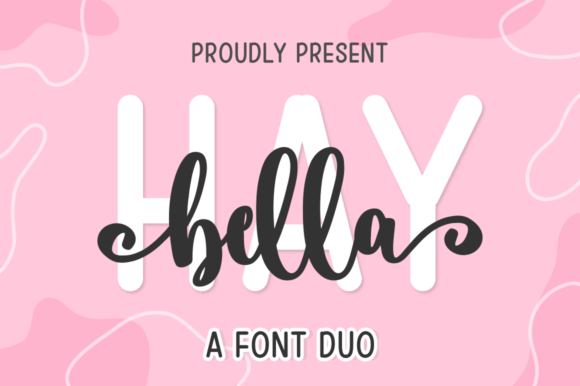
Discover the Joy of Hay Bella Font
Do you remember the feeling of excitement and creativity that comes with planning a special project? Maybe it’s a custom birthday invitation, a wedding program, or a set of holiday cards. Whatever it is, the right font can make all the difference in setting the tone and style. That’s where Hay Bella Font comes in – a beautifully designed duo of script and sans serif fonts that are meant to be used together or separately.
Hay Bella Font is more than just a pretty face; it’s a valuable tool for designers looking to add a touch of elegance and whimsy to their crafts. With its PUA encoding, accessing all glyphs and swashes is a breeze, giving you endless possibilities for customization. Whether you’re a seasoned pro or just starting out, Hay Bella Font is sure to inspire your next creative project.
Hay Bella Font Key Features
- Unique Characteristics: Features a unique, hand-drawn design with a rustic and vintage feel, adding a touch of warmth and personality to any project.
Honest Review: Hay Bella Font
Overall, I’m a fan of the Hay Bella font. It’s a beautiful, elegant script font that works well in various design contexts. ✨ The flowing lines and subtle connections between letters make it perfect for typography-heavy projects, such as invitations, menus, or greeting cards.
Here are some of the things that work well in Hay Bella:
- ✨ Elegant and refined feel: Hay Bella has a sophisticated, high-end look that’s perfect for luxury brands or projects.
- ✨ Versatility: It works well in both print and digital designs, making it a great choice for a wide range of applications.
- ✨ Beautiful connections: The way the letters connect to each other is a standout feature of this font, adding to its elegance and sophistication.
- ⚠️ Limited character set: Hay Bella is a script font, which means it may not be suitable for projects that require a wide range of characters, such as technical writing or coding.
- ⚠️ Not ideal for small text: The font’s elegance and refinement can make it difficult to read in small sizes, so it’s best to use it in larger point sizes.
Overall, I think Hay Bella is a great addition to any designer’s toolkit. It’s a beautiful, elegant font that’s perfect for projects where you want to make a statement. With a little creativity and planning, you can overcome its limitations and create stunning designs with this font.
Tips for Getting the Most Out of Hay Bella Font
Hay Bella Font is a versatile font that can be used in a variety of designs. Here are some tips for getting the most out of it:
- Use Hay Bella Font in combination with other elegant fonts to create a sophisticated look.
- Use Hay Bella Font in headings and titles to draw attention to important information